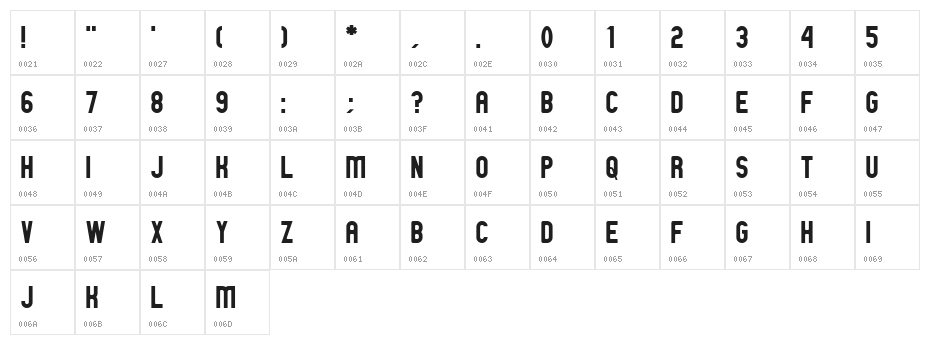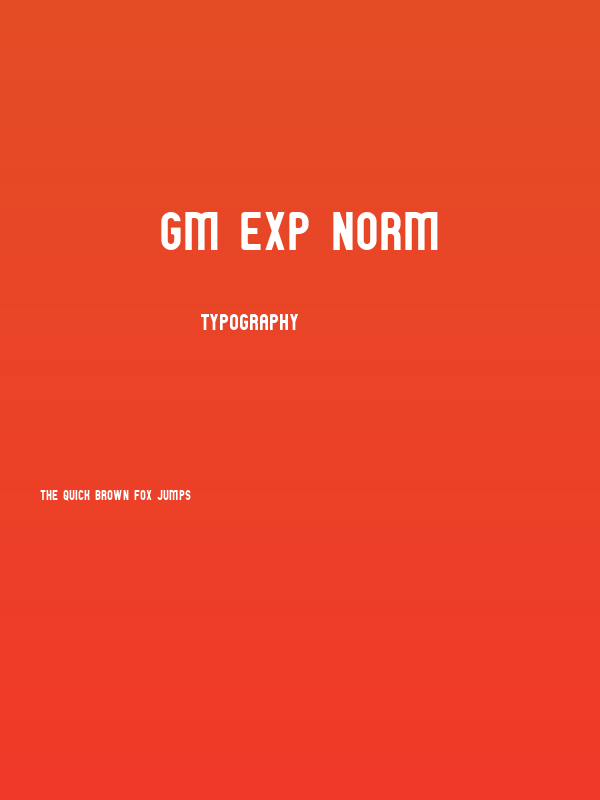
GM Exp Norm Font
GM Exp Norm Description
This font features a bold and geometric design with a strong presence. The uppercase letters are uniform in height and width, creating a cohesive and structured appearance. The lowercase letters maintain the same boldness, ensuring readability and consistency. The numbers are clear and distinct, matching the overall bold style. Special characters are included, maintaining the geometric and bold aesthetic. This font is ideal for making a strong visual impact, with its clean lines and modern appeal.
| Proposed Projects | Ideal for branding, posters, headlines, and any project requiring a strong visual impact. |